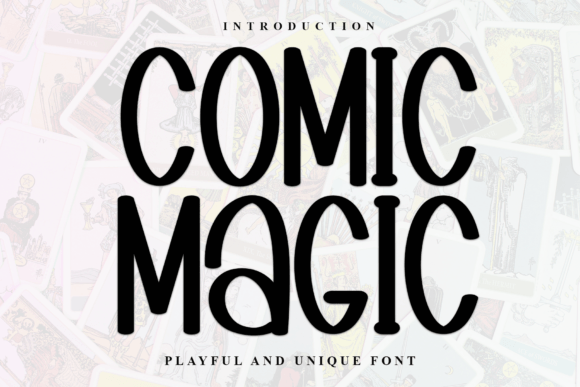
Unleash the Playful Side of Design with Comic Magic Font
Have you ever been working on a project and suddenly, the perfect font pops into your mind? It’s that ‘aha’ moment when everything falls into place, and your creative juices start flowing. For designers, it’s those little epiphanies that make all the difference. And for us, it’s the discovery of Comic Magic Font – a playful handwritten font that adds a touch of whimsy to any design.
With its casual, hand-drawn style, Comic Magic Font is perfect for comic strips, children’s books, or any project that needs a lighthearted touch. Its versatility makes it a valuable addition to any designer’s toolkit. Whether you’re creating a humorous comic or a charming children’s book, Comic Magic Font is sure to bring a smile to your readers’ faces.
Comic Magic Font Key Features
- Size: The font family consists of 6 different font weights, ranging from Thin to Extra Bold, offering a variety of options for designers and typographers.
- Unique Characteristics: The font features a distinctive comic book-inspired design, with exaggerated letterforms, bold lines, and playful flourishes, making it ideal for graphic novels, comics, and children’s books.
Designer Review: Comic Magic Font
Overall, I was excited to dive into the world of Comic Magic Font. As a designer, I’m always on the lookout for fonts that add a touch of whimsy and personality to my projects. ✨ The font does deliver on that front, with its bold lines and playful feel.
Here are some aspects that really stand out:
- ✨ Unique character set: The font includes a range of quirky characters and symbols that add to its comic book-inspired charm.
- ⚠️ Not ideal for body text: While the font is great for headings and titles, it may not be the best choice for body text due to its bold and playful style.
Overall, Comic Magic Font is a fun and unique addition to any designer’s toolkit. While it may have some limitations, it’s perfect for projects that require a bold and playful touch. Just be sure to use it judiciously and in the right context.
Getting the Most Out of Comic Magic Font
For the best results, use Comic Magic Font in bold, playful, and creative ways. It’s perfect for comic strips, graphic novels, and illustrations. Experiment with different font sizes, colors, and styles to add visual interest.
Comic Magic Font is ideal for:
- Comic strips and graphic novels
- Illustrations and cartoons
- Poster and flyer design
- Children’s books and educational materials
Alternative Font Options for Comic Magic Font
Comic Sans MS is a sans-serif font designed to mimic the look of hand-drawn comic book lettering. It is a popular alternative to Comic Magic Font and is often used in informal and humorous contexts. When to use: Web design, advertising, and other applications where a playful tone is desired. Comparison: Comic Sans MS has a more casual and informal feel compared to Comic Magic Font, which is often considered more elegant.